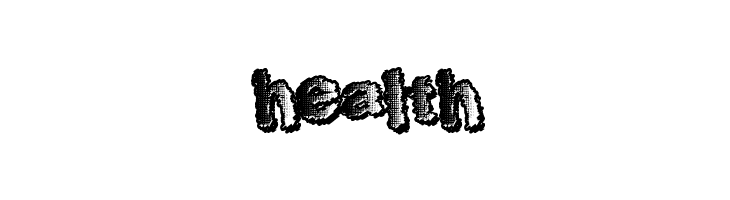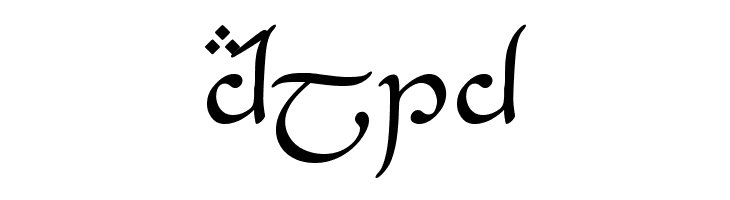
A bold, decorative font with sharp edges and a vintage, three-dimensional shadow effect.
A classic serif font with elegant lines and medium contrast.
A jagged, thorny decorative font with an intense and chaotic style.
( Fonts by Southype )
An organic, hand-drawn font with a textured, decorative style.
A bold, textured, hand-drawn font with a playful and artistic style.
( Noah K. )
An elegant, flowing script with intricate curves and a mystical appearance.
( Noah K. )
An elegant, intricate script font with a mystical and artistic appearance.
( Noah K. )
A decorative script inspired by Elvish languages, featuring elegant and flowing lines.
( Noah K. )
A mystical and elegant script inspired by Tolkien's Tengwar, perfect for fantasy themes.